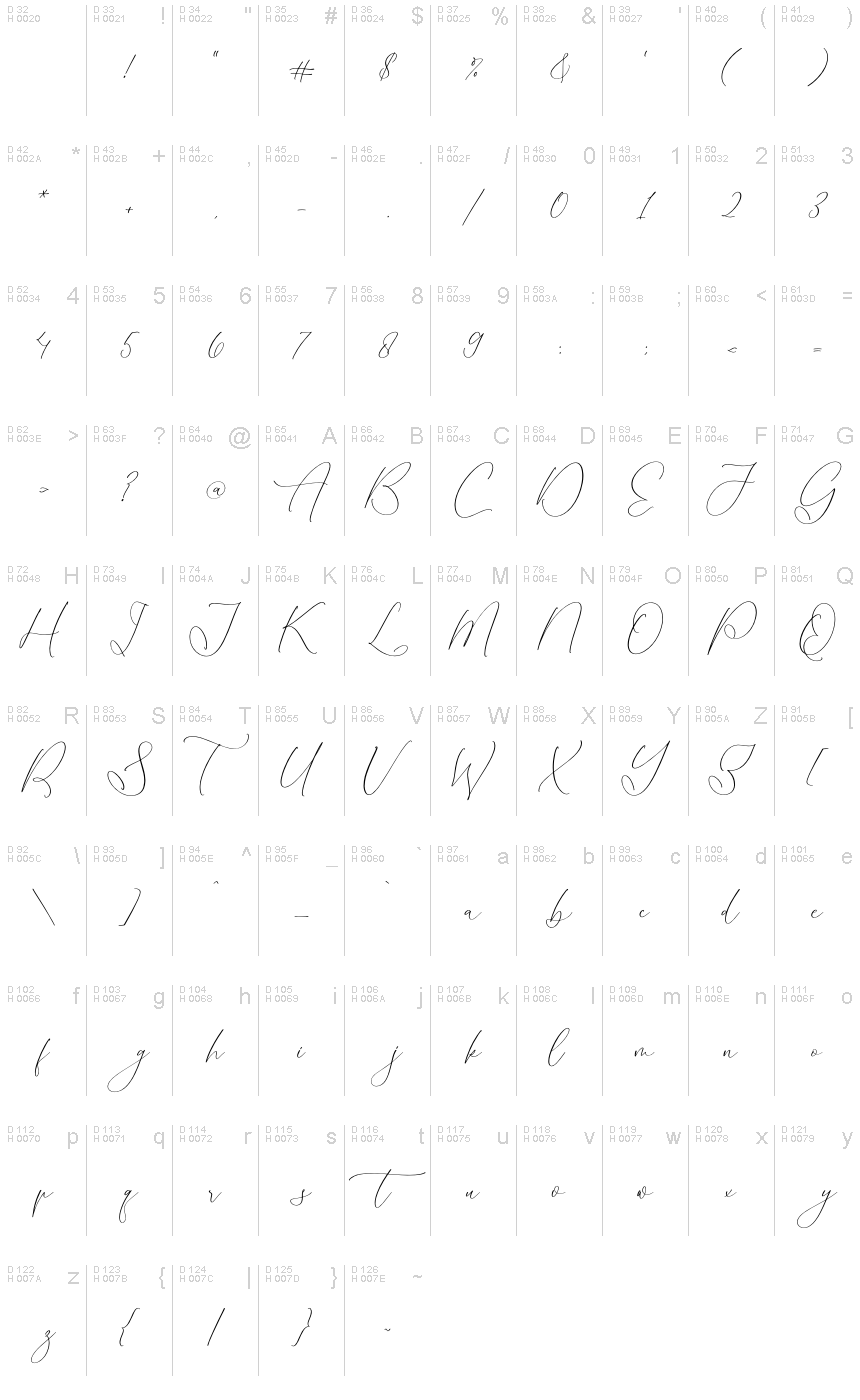
Homylane Dremyntine
Homylane Dremyntine, a captivating handwritten font created by Storytype Studio, exudes a whimsical charm that instantly captures the eye. This light-weight script boasts elegant, flowing strokes that seamlessly blend together, evoking a sense of effortless grace and delicacy. The organic, natural lines of Homylane Dremyntine convey a sense of warmth and authenticity, making it an alluring choice for designers seeking to infuse their projects with a touch of rustic elegance.
Homylane Dremyntine's versatility shines through, making it a versatile option for a variety of design applications. From captivating wedding invitations and greeting cards to charming product packaging and branding materials, this font's distinct personality lends itself to projects that require a touch of artistry and personal flair. Its fluid, handwritten aesthetic effortlessly complements both modern and vintage-inspired designs, allowing it to seamlessly integrate into a wide range of creative endeavors.